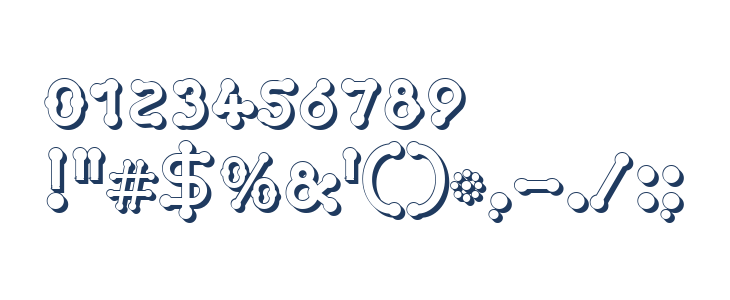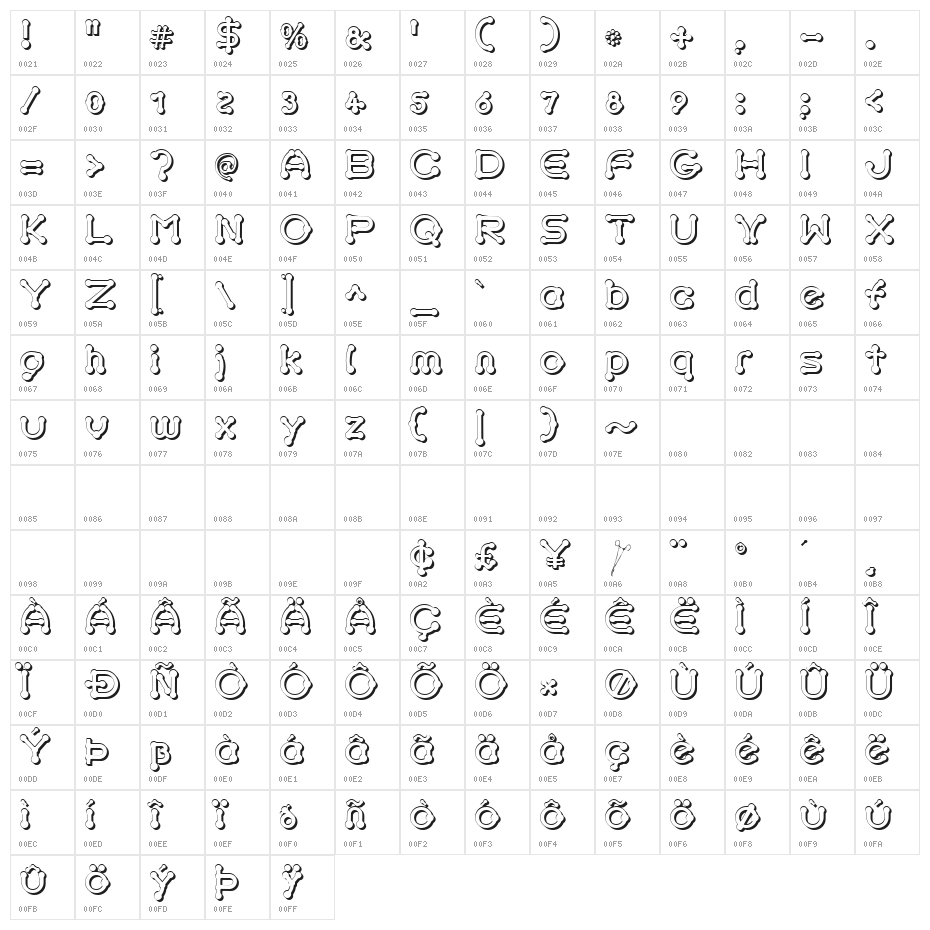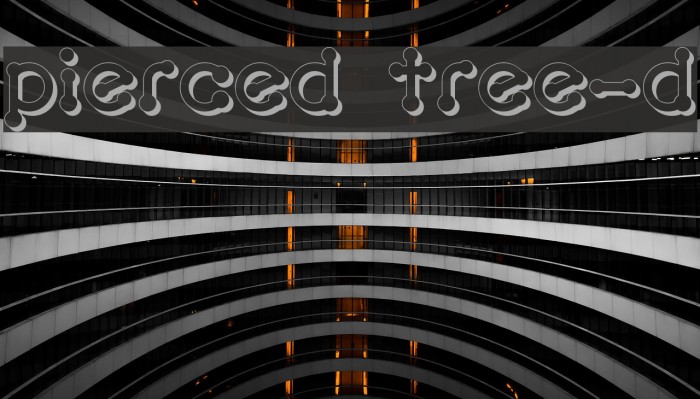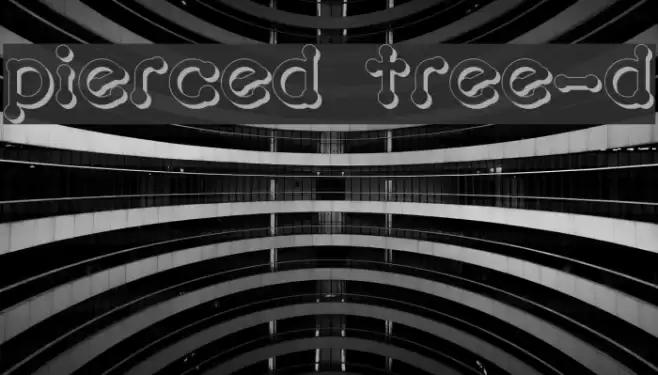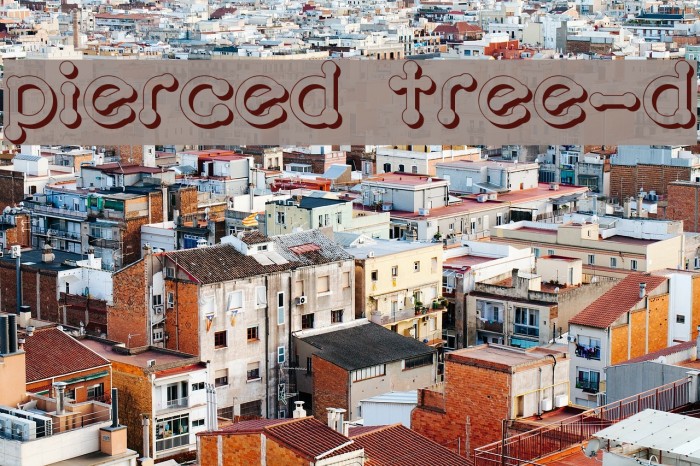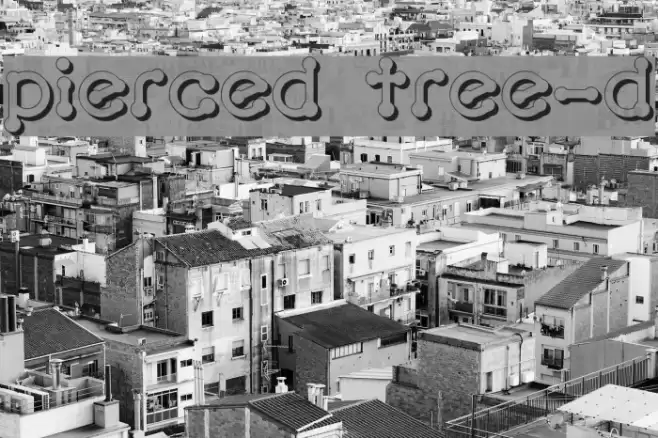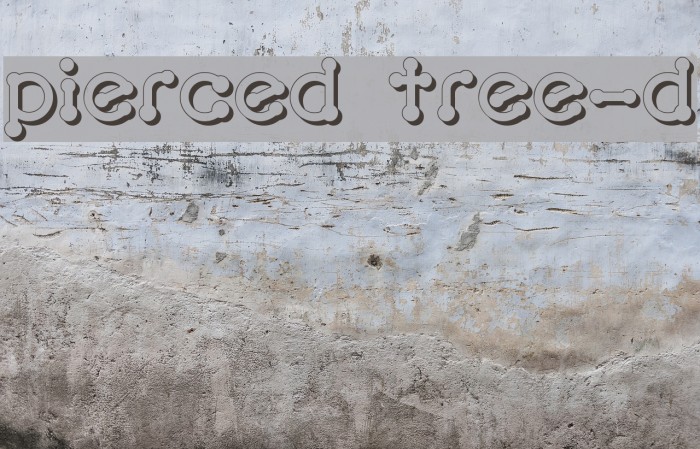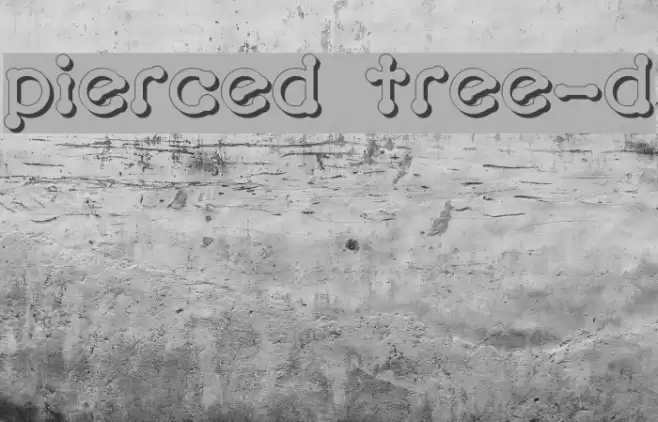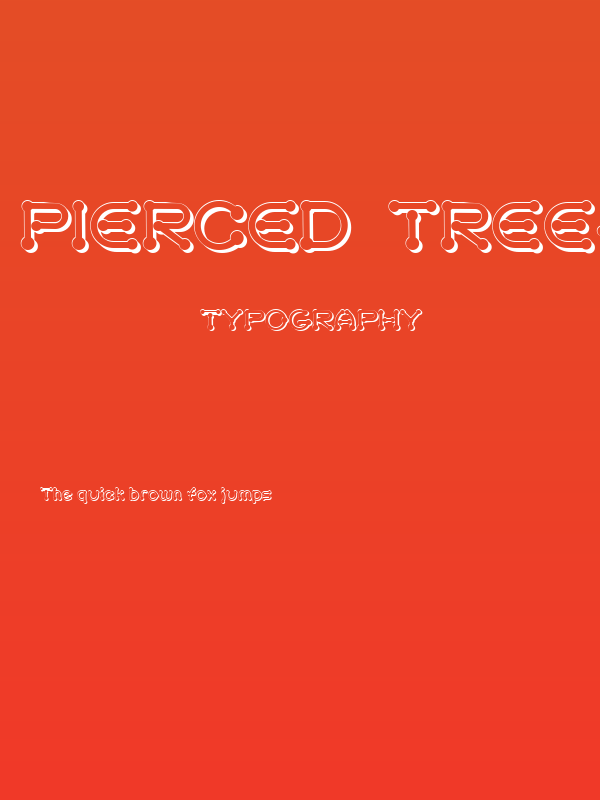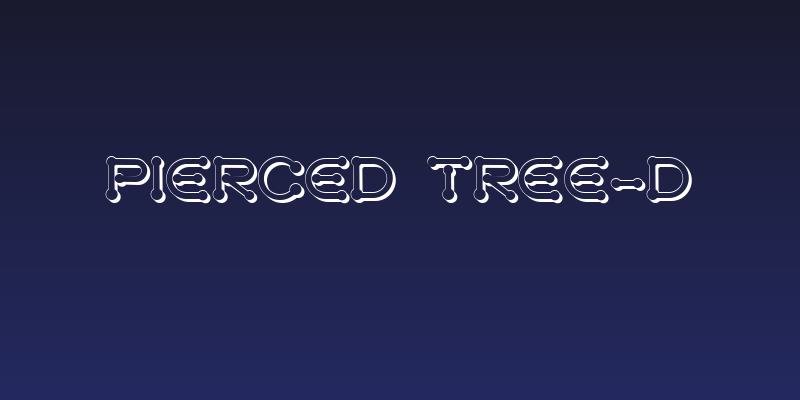
pierced tree-d Font
pierced tree-d Description
This font features a unique and playful design with a pierced effect, where each character appears to be connected by small circular nodes. The letters are bold and rounded, giving them a friendly and approachable appearance. The outline style adds a layer of depth, making the characters stand out. This font is highly decorative, with a modern twist that makes it suitable for creative projects. The numbers and special characters maintain the same playful style, ensuring consistency across all elements.
| Proposed Projects | Ideal for children's book covers, playful branding, creative posters, and unique logo designs. |